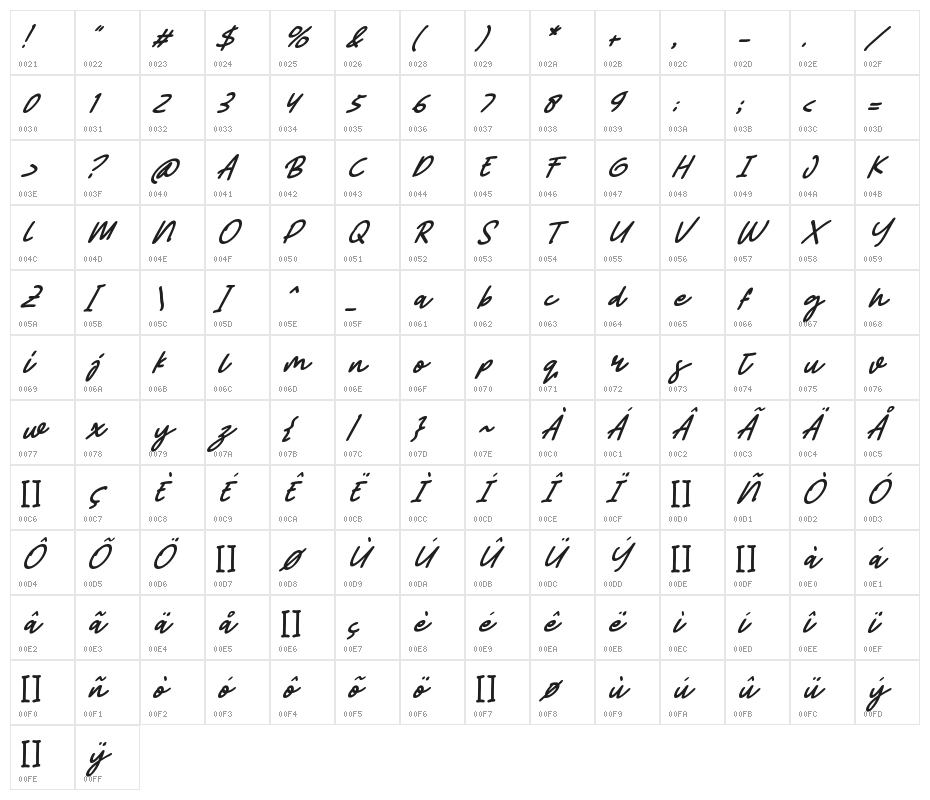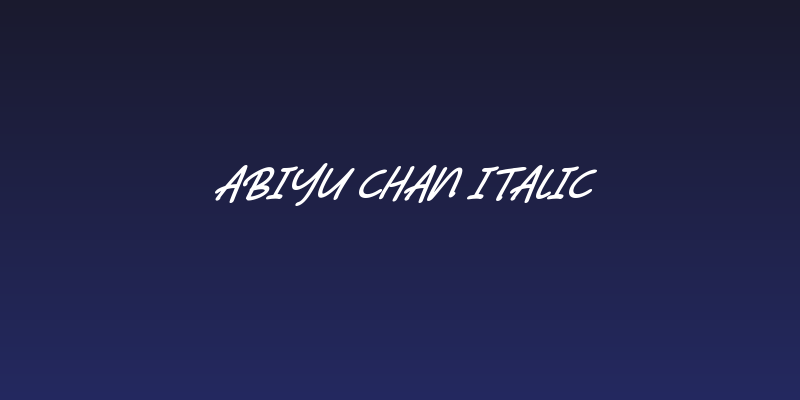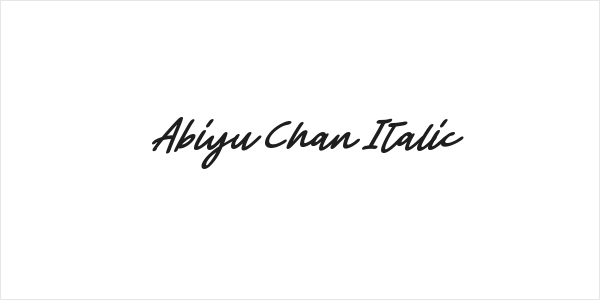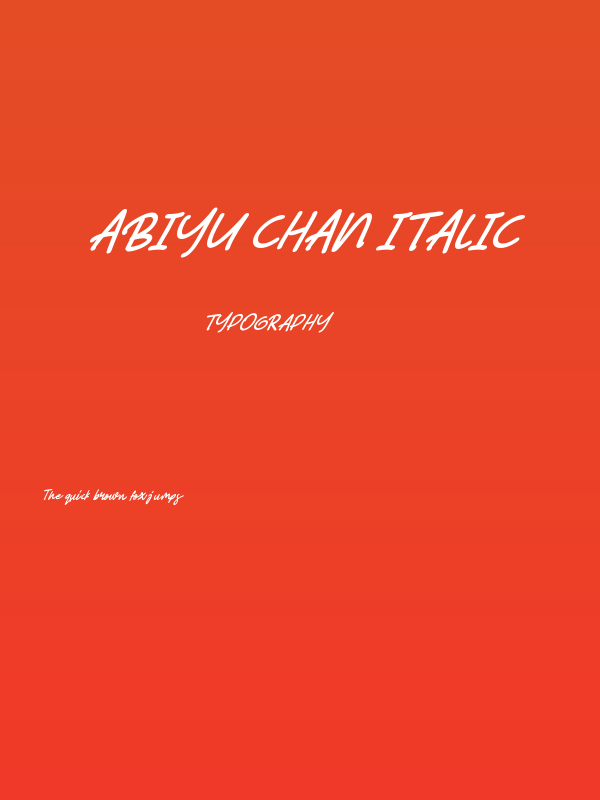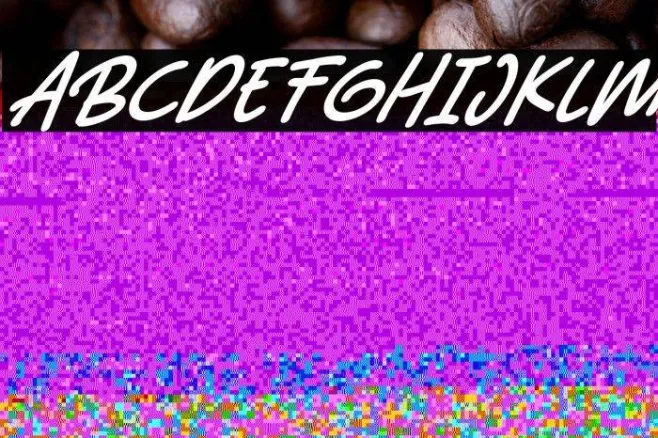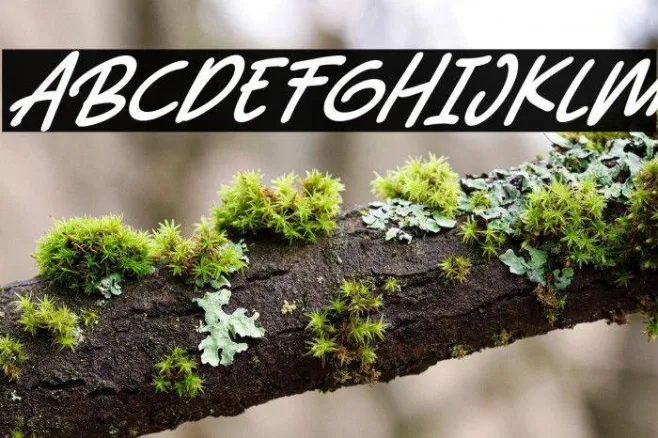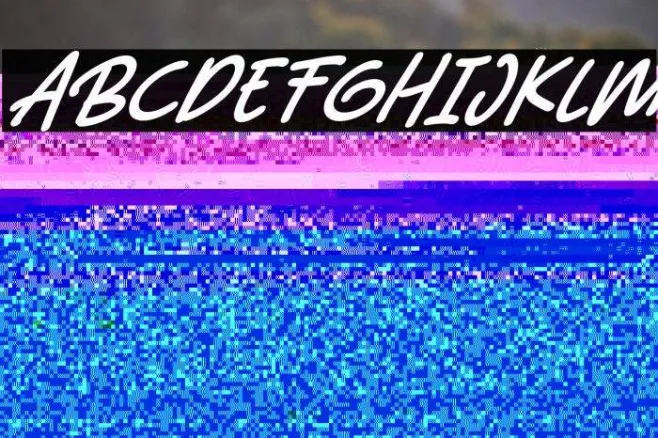
Abiyu Chan Italic Font
Abiyu Chan Italic Description
This font exhibits a dynamic and fluid cursive style, characterized by its slanted, italicized form. The letters are connected, creating a seamless flow that mimics natural handwriting. The strokes are bold and confident, with a consistent thickness that provides a strong visual impact. The uppercase letters maintain a uniform height, while the lowercase letters vary slightly in size, adding to the handwritten feel. The numerals and special characters are crafted with the same attention to detail, ensuring a cohesive appearance across all glyphs. This font is ideal for projects that require a personal touch or a sense of elegance and sophistication.